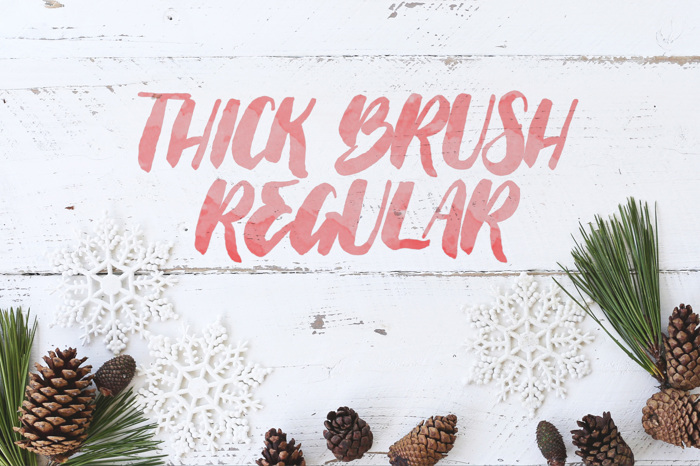
Thick Brush Font
Thick Brush Regular is an original, hand-drawn modern calligraphy typeface. The characters were drawn with a Pentel Pigment Ink Brush Pen, and retain their rough-hewn organic feel. Each character has been designed to be used as a connected script - make sure you have Metrics turned on to get the most out of our kerning work!
Designed to create product-ready layouts in all-caps, lowercase, or Title Case, Thick Brush Regular is perfect for advertising, graphic design, postcards, and prints. Just design, print, and sell!